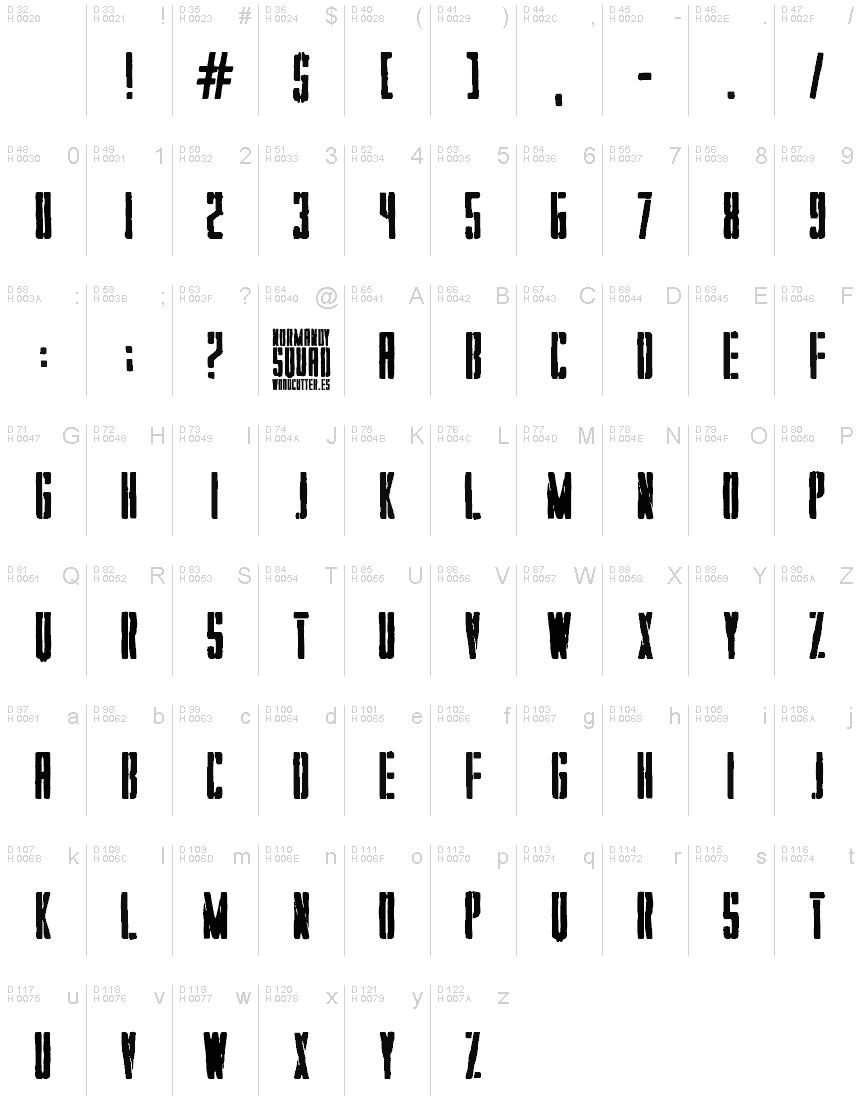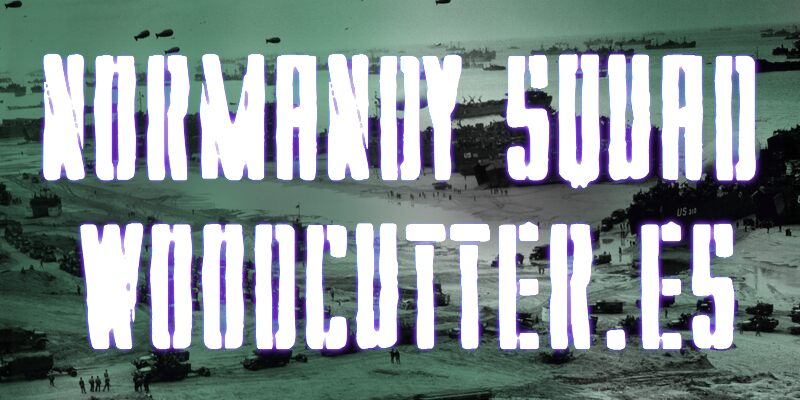
Normandy Squad
"Normandy Squad" is a bold, military-inspired display font that exudes a rugged, weathered aesthetic. Designed by Woodcutter Manero, this condensed typeface seamlessly blends the aesthetic of a squad insignia with an eroded, time-worn texture.
The sharp, angular letterforms and distressed detailing capture the essence of a squad-based, tactical motif, making it an impactful choice for logos, branding, and editorial design in need of a commanding, gritty visual impact.
Its compact width allows for versatile application across a range of design scenarios, from book covers to poster designs, where a compact yet striking typographic statement is desired.